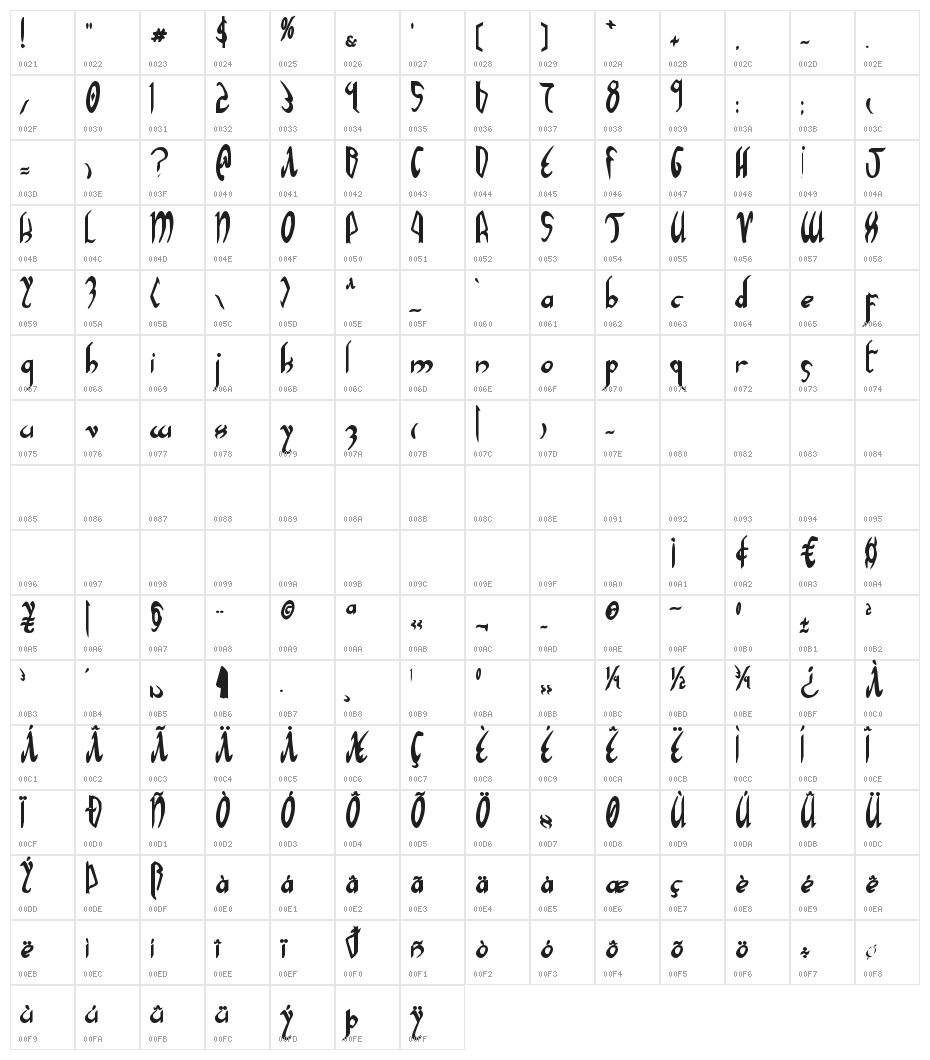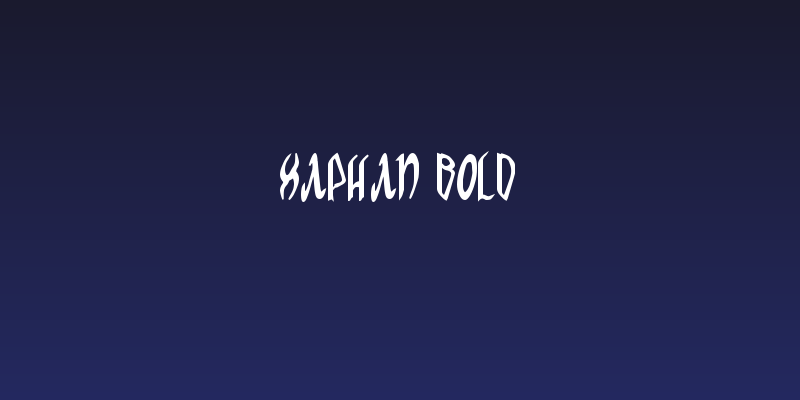
Xaphan Bold Font
Xaphan Bold Description
This font features a bold and dramatic style with sharp, angular edges and a gothic influence. The uppercase letters are tall and narrow, with exaggerated curves and pointed serifs that give them a striking appearance. The lowercase letters maintain a similar aesthetic, with unique flourishes and a slightly condensed form. Numbers and special characters follow the same design principles, ensuring consistency across all glyphs. The overall look is both modern and medieval, making it suitable for projects that require a bold statement.
| Overall Style | Gothic, Dramatic |
| Proposed Projects | Ideal for use in fantasy-themed designs, book covers, posters, and branding that requires a bold and dramatic impact. |